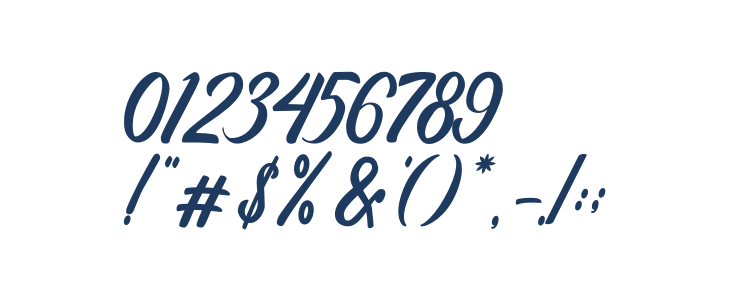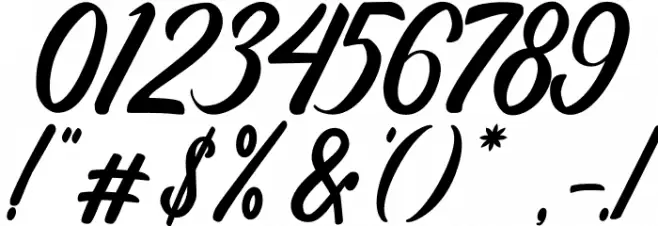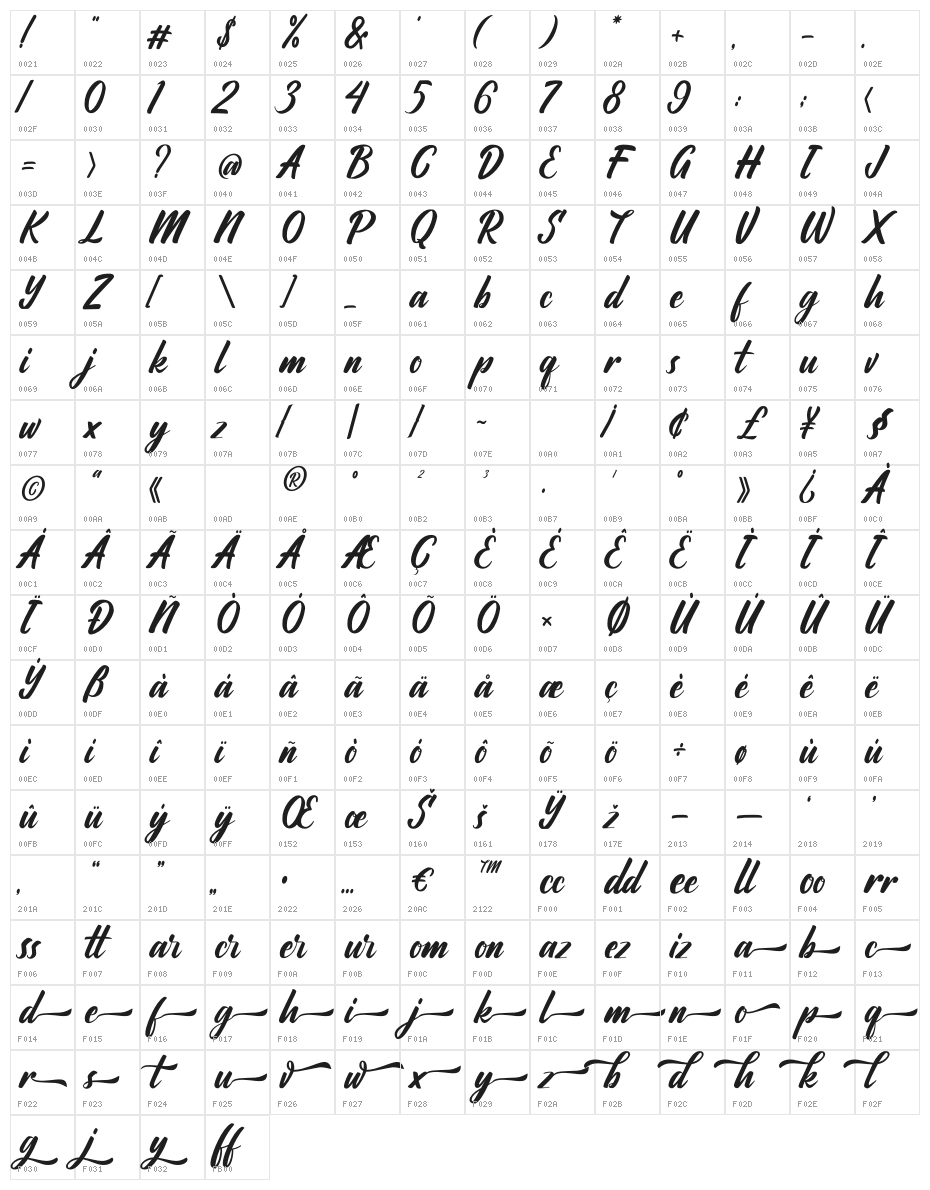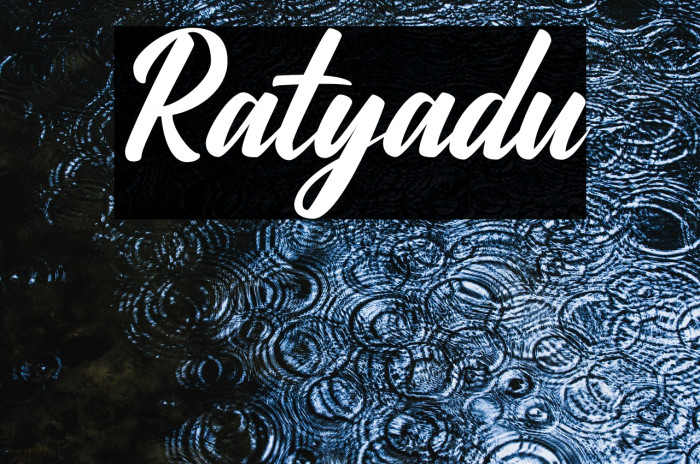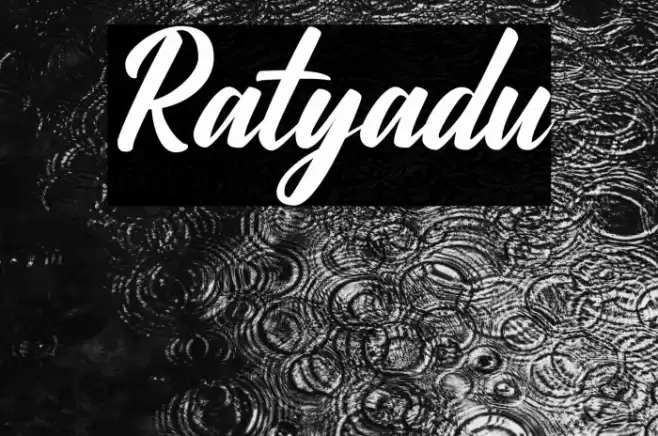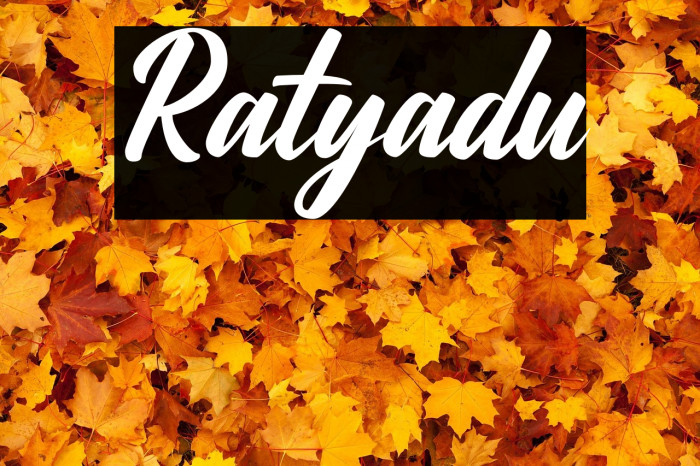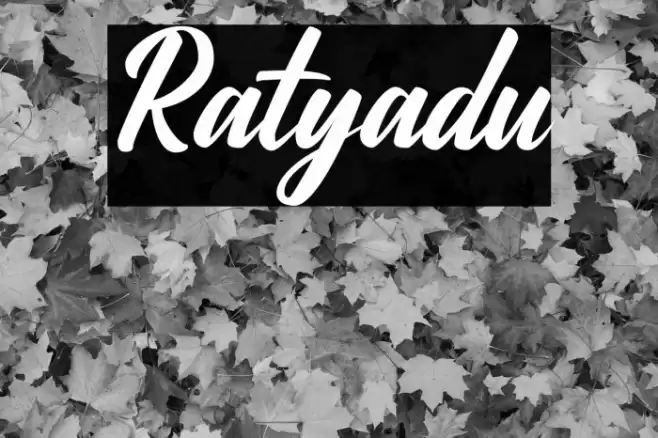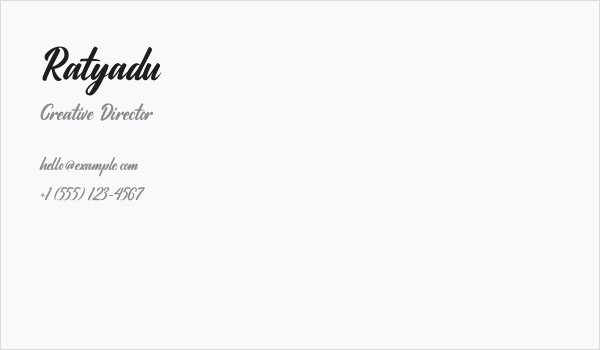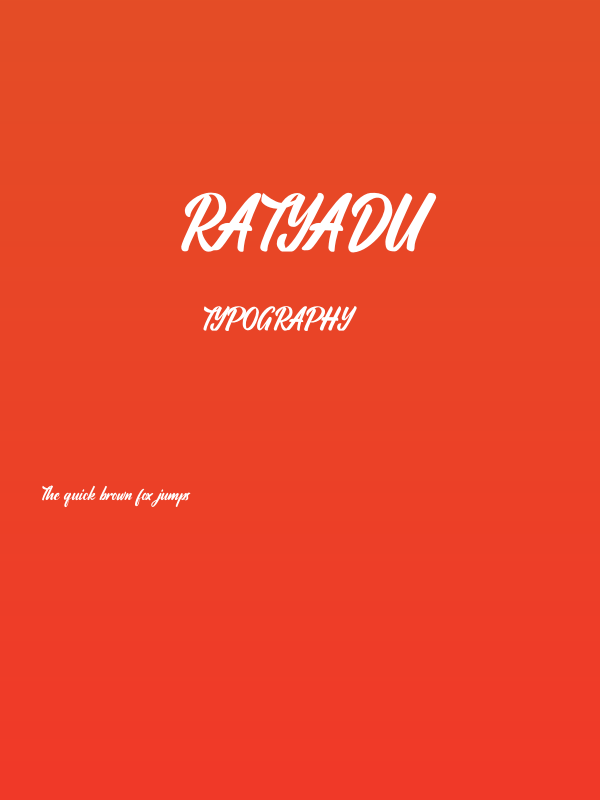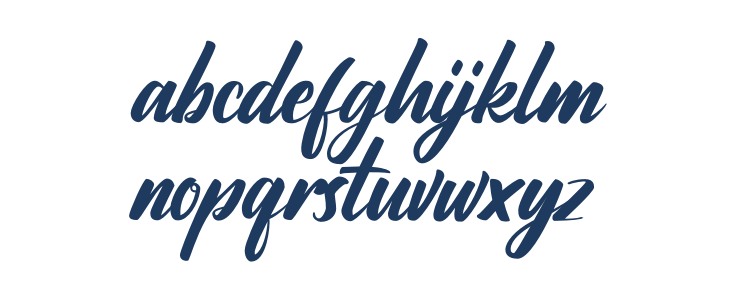
Ratyadu Font
Ratyadu Description
This font exudes a bold and dynamic script style, characterized by its fluid, cursive strokes that convey a sense of elegance and movement. The letters are interconnected with a smooth flow, creating a harmonious and cohesive appearance. The uppercase letters are slightly more pronounced, adding a touch of sophistication, while the lowercase letters maintain a consistent rhythm. The numerals and special characters are designed to complement the overall style, ensuring versatility across various applications. The font's boldness and cursive nature make it ideal for projects that require a touch of flair and personality.